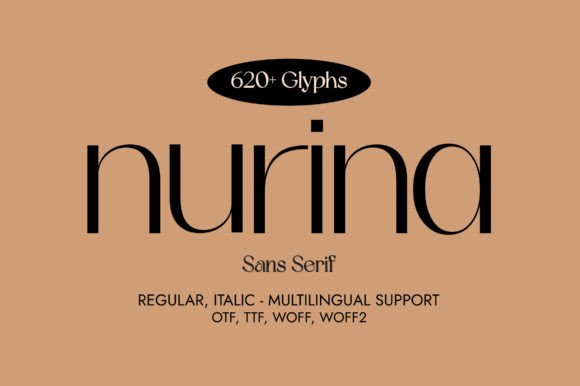
Embrace the elegance of minimalism with Nurina, the breathtaking sans-serif typeface that exudes simplicity and grace. Its delicate strokes and refined contours are a testament to the power of understated beauty. Elevate your designs with Nurina, and let its clean lines and subtle curves elevate your designs to new heights of sophistication.
Journey into the realm of minimalist allure with Nurina. Its versatility knows no bounds, effortlessly adapting to a wide array of design projects, from elegant wedding invitations to sleek logos. Whether you're a seasoned designer or just starting, Nurina's intuitive nature makes it a joy to use. Discover the endless creative possibilities that await, and let your imagination soar.
With Nurina, your words will dance with a renewed sense of charm and elegance. Its meticulously crafted character set ensures that every letter and symbol carries the essence of minimalism, adding a touch of sophistication to even the simplest of messages. Engage your audience with the captivating allure of Nurina, and leave a lasting impression that lingers in their minds.
Embrace the minimalist movement and unleash your creativity with Nurina. Let its understated beauty elevate your designs, capturing the attention of all who behold it. Experience the transformative power of simplicity, and discover the endless possibilities that await when you choose Nurina. Your designs will radiate with a newfound grace and elegance, leaving a lasting impression that speaks volumes.